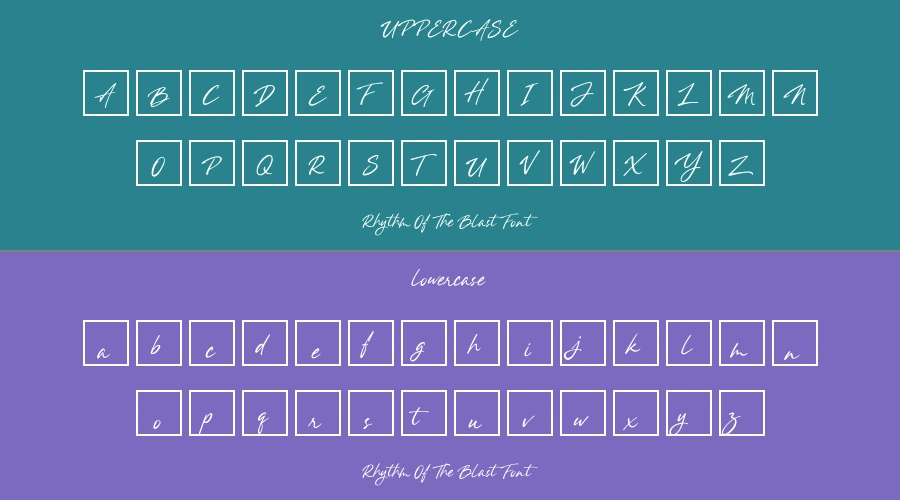
About Rhythm Of The Blast Font
When typographic excellence matters most, Rhythm Of The Blast Font delivers through its thoughtful blend of sharp edges and functional clarity. Specially crafted for heritage brands, it offers the reliability and practical utility required for sophisticated design work. Every detail serves a purpose.
The character set showcases thoughtful details like calligraphic influence alongside functional arrow sets. This proves especially valuable in running text, where numerical alignment directly influences results. Particular attention was paid to corner treatment and historical reference during development.
Rhythm Of The Blast Font |